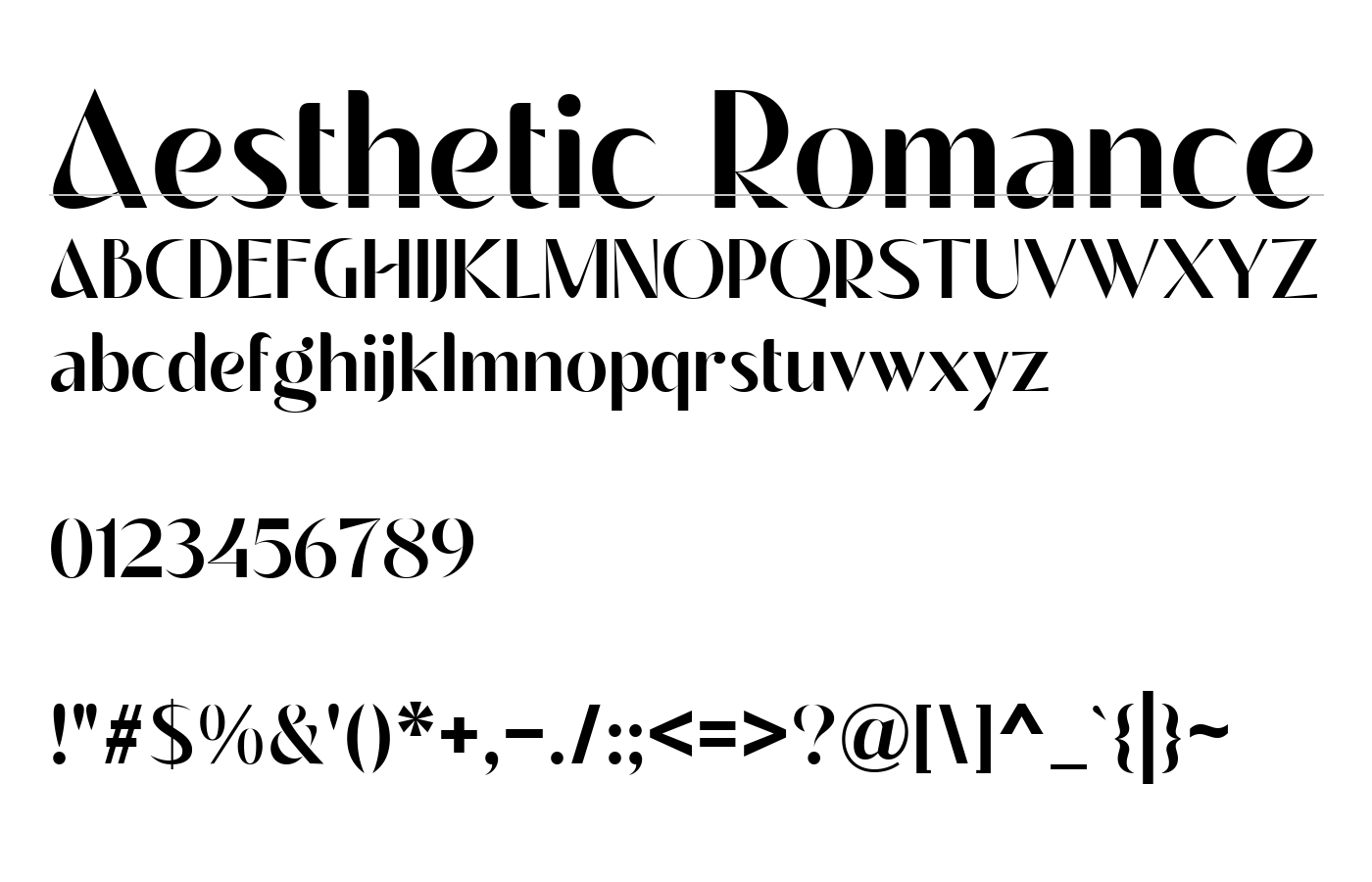
Aesthetic Romance is an elegant serif font with a modern twist, featuring high contrast between thick and thin strokes and unique, sharp serifs that give it a sophisticated yet artistic feel. Its tall, narrow letterforms and distinctive details, like angled terminals and stylized curves, make it perfect for luxury branding, editorial headlines, and fashion-focused design where a refined and memorable impression is desired. This font balances classic charm and contemporary style, ideal for creating striking visual identities and stylish marketing materials.
Aesthetic Romance Font
About Aesthetic Romance Font
| Font family | Aesthetic Romance Font |
| Designer | Sugiyanto |
| Trademark | Aesthetic Romance Typeface by Sign Studio |